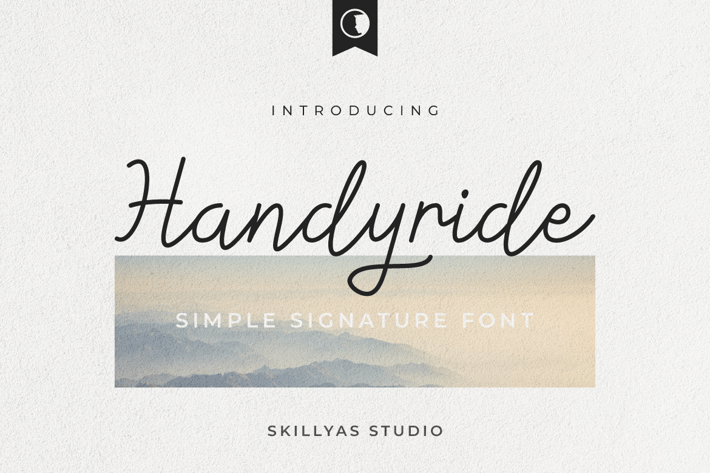
Handyride Lovely Handwritten Font
Handyride is a Simple Handwritten Font, Described by a Smooth and Elegant Touch,
Handyride is perfect for product packaging, branding projects, magazines, social media, weddings, or expressing words above the background.
Character:
- Uppercase & Lowercase Letters
- Punctuation & Symbols Support
- PUA encoded Range Standard Alternative Style
- Ligature (Standard and Discretionary)